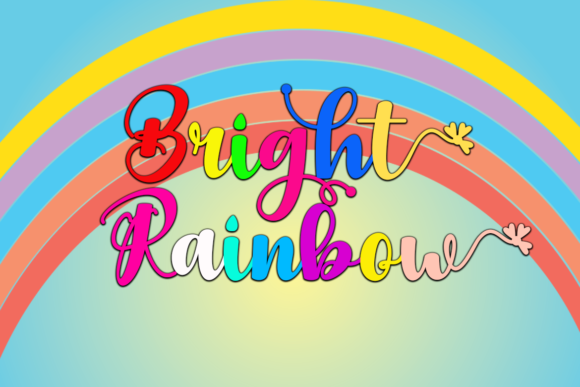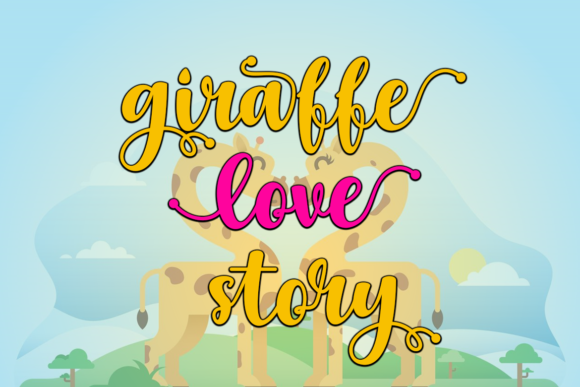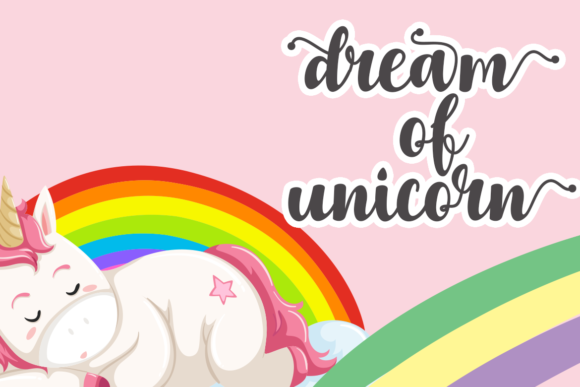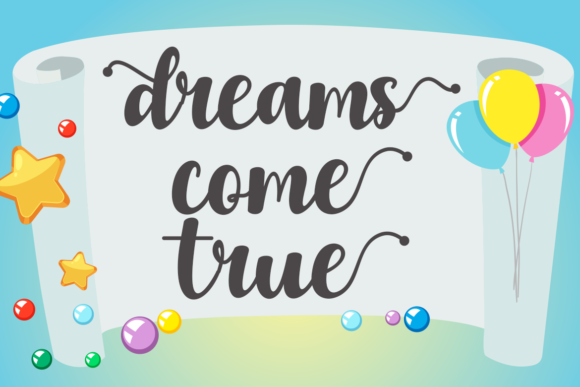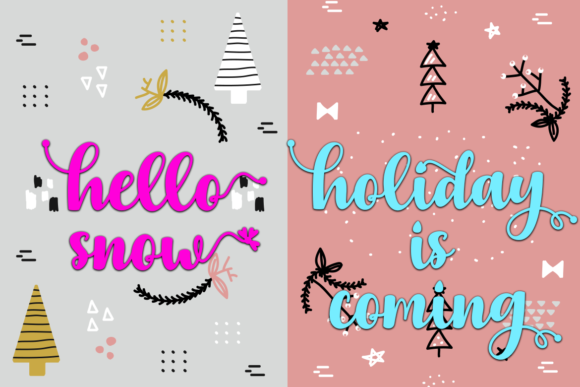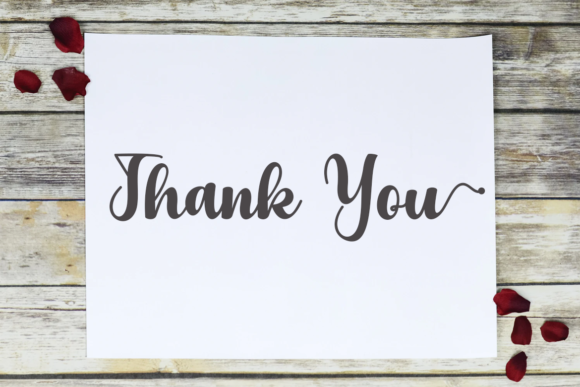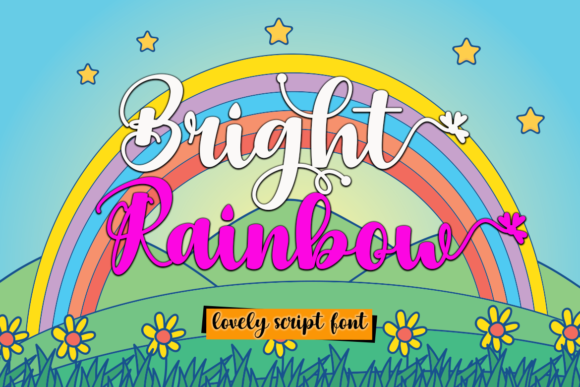
Unlock the Magic of Bright Rainbow Font
Do you remember the moment when you first saw a beautiful rainbow after a spring shower? The vibrant colors and the feeling of hope and joy it brought to your heart? For designers, there’s a similar moment of excitement when they discover the perfect font to bring their creative vision to life. Introducing the Bright Rainbow Font, an elegant and cheerful handwritten font that’s about to become your new favorite companion.
This lovely font is more than just a pretty face – it’s a valuable tool for designers looking to add a touch of whimsy and personality to their projects. With its beautiful and balanced characters, the Bright Rainbow Font fits seamlessly into a wide range of designs, from wedding invitations to social media graphics. And with its PUA encoding, you can access all of the glyphs and swashes with ease, making it a breeze to customize and make it your own.
Bright Rainbow Font Key Features
- Unique Characteristics: Bright Rainbow Font features a vibrant and playful design, with a mix of uppercase and lowercase letters, numbers, and special characters, creating a visually appealing and fun typographic experience.
- Style Variations: Bright Rainbow Font offers 4 different styles: Regular, Bold, Italic, and Bold Italic, providing users with a range of options to suit their design needs.
- Color Palette: The font’s color palette is based on a bright and cheerful rainbow scheme, with a range of colors that can be customized using font color options in most software applications.
Bright Rainbow Font Review
✨ I love the playful and vibrant personality of the Bright Rainbow Font! It’s perfect for creating eye-catching headlines, social media graphics, and other designs where you want to add a pop of color and energy. The font’s irregular, hand-drawn feel gives it a unique, whimsical charm that’s sure to grab attention.
✨ Another great thing about the Bright Rainbow Font is its versatility. It comes in a range of colors, from soft pastels to bold neon hues, making it easy to find the perfect shade to match your brand or design aesthetic. The font is also highly customizable, allowing you to adjust the size, spacing, and color to suit your needs.
⚠️ One of the main limitations of the Bright Rainbow Font is its readability at smaller sizes. Due to its irregular shape and color, it can be difficult to read in certain situations, especially in body text or when used in a crowded design. It’s best to use it sparingly and reserve it for headings and titles where its impact can be fully appreciated.
Overall, I think the Bright Rainbow Font is a great choice for designers looking to add some visual interest and personality to their designs. While it may have some limitations, its unique charm and versatility make it a valuable addition to any design toolkit.
To get the most out of the Bright Rainbow Font, use it in conjunction with other bright and bold elements, such as bright colors and patterns. This will create a visually striking and eye-catching design.
The Bright Rainbow Font is commonly used for:
- Children’s educational materials
- Marketing and advertising materials
- Artistic and creative projects